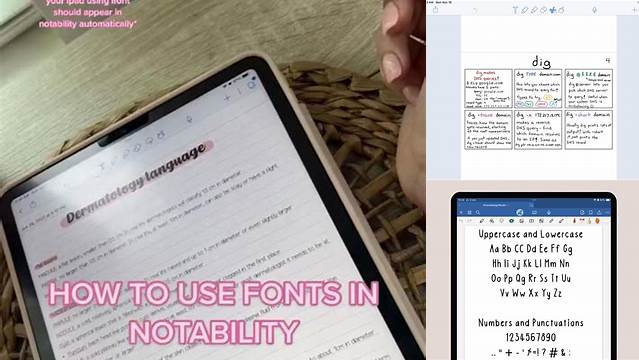
Best Fonts For Notability On IPad: A Comprehensive Guide
Hey guys! Are you a Notability user on your iPad looking to spice up your notes? Or maybe you're just tired of the same old fonts and want to inject some personality into your handwriting? You've come to the right place! In this comprehensive guide, we're diving deep into the world of fonts for Notability on iPad. We'll explore everything from the built-in options to how to install custom fonts and even recommend some of our favorites.
Choosing the right font is more than just aesthetics; it's about enhancing readability, improving your note-taking experience, and making your work truly your own. Whether you're a student, a professional, or simply someone who loves taking notes, having a variety of fonts at your disposal can make a world of difference. So, let's jump in and discover the exciting possibilities that await you in the realm of Notability fonts! We'll cover all the basics, like the default fonts available, and then move on to more advanced topics, such as how to install your own custom fonts. We'll also provide some tips and tricks for choosing the perfect font for different situations, like note-taking, journaling, or creating presentations. By the end of this guide, you'll be a font pro, ready to take your Notability experience to the next level. So, grab your iPad, open Notability, and let's get started! Remember, the right font can transform your notes from bland to brilliant, so don't underestimate the power of typography. Think of your notes as a visual representation of your thoughts, and the font is the voice that conveys those thoughts. Just like choosing the right words is important, so is choosing the right font. So, let's explore the possibilities and find the perfect font to match your style and needs.
Understanding Default Fonts in Notability
First, let's talk about the default fonts that come pre-installed in Notability. Notability offers a selection of fonts that are chosen for their readability and versatility. These fonts are a great starting point for your note-taking adventures. Understanding these default options is crucial before venturing into custom fonts. These fonts are carefully selected to provide a balance between aesthetics and functionality. They are designed to be legible on the iPad screen, even at smaller sizes, and they work well with both typed text and handwritten notes. Furthermore, they are optimized for digital use, meaning they render clearly and consistently across different devices and platforms. So, before you rush off to download a bunch of custom fonts, take some time to explore the default options. You might be surprised at how many great choices are already available to you. Each font has its own unique personality and can convey a different tone or feeling. For example, a serif font like Times New Roman might give your notes a more formal and professional look, while a sans-serif font like Helvetica might feel more modern and casual. Experiment with different fonts to see which ones you like best and which ones work best for different situations. Consider the purpose of your notes, the subject matter, and your personal preferences.
Notability typically includes a variety of fonts, including:
- Sans-serif fonts: These fonts have a clean, modern look and are great for headings and body text. Examples include Helvetica, Arial, and Open Sans.
- Serif fonts: These fonts have small decorative strokes (serifs) at the ends of the letters and often give a more traditional or formal feel. Times New Roman and Georgia are common examples.
- Monospaced fonts: In these fonts, each letter takes up the same amount of horizontal space, making them ideal for code snippets or text that needs to be aligned. Courier New is a classic monospaced font.
- Handwriting-style fonts: Some apps, including Notability, may offer fonts that mimic handwriting, adding a personal touch to your notes.
These default fonts are designed to cater to various needs, whether you're writing essays, taking meeting minutes, or sketching out ideas. Each font brings its own personality and readability to your notes. For example, if you're taking notes in a fast-paced lecture, you might prefer a clean and legible sans-serif font that's easy to read at a glance. On the other hand, if you're writing a creative piece or journaling, you might opt for a more decorative or handwriting-style font that reflects your personal style. The key is to experiment and find the fonts that resonate with you and enhance your note-taking experience. Don't be afraid to mix and match fonts for different elements of your notes, such as using a bold sans-serif font for headings and a serif font for the body text. This can help create visual hierarchy and make your notes more organized and engaging.
Installing Custom Fonts on Your iPad
Now, let's get to the exciting part: installing custom fonts! If you’re looking for something beyond the default options, adding custom fonts can really personalize your Notability experience. This process involves a few steps, but it's totally worth it for the added flexibility and style. Imagine having access to a vast library of fonts, each with its own unique character and charm. You could use a whimsical font for your personal journal, a professional font for your work notes, and a creative font for your artistic projects. The possibilities are endless! But before you start downloading fonts from the internet, it's important to understand the basics of font installation on your iPad. Fortunately, Apple has made it relatively easy to add custom fonts to your device, thanks to the introduction of font management profiles in recent versions of iOS and iPadOS. This means you no longer need to jailbreak your device or use third-party apps to install fonts. All you need is a font file (usually in .ttf or .otf format) and a font management app, which we'll discuss in more detail below.
Steps to Install Custom Fonts
- Find a Font Management App: You’ll need an app like iFont, AnyFont, or Font Diner. These apps help you install fonts on your iPad.
- Download Your Fonts: Find a reputable source for downloading fonts. Websites like Google Fonts, DaFont, and Font Squirrel offer a wide variety of free and paid fonts.
- Import Fonts to the App: Open your font management app and import the font files you’ve downloaded. This usually involves tapping an “Import” or “Install” button.
- Install the Font Profile: The app will guide you through installing a configuration profile. This is how iOS recognizes the new fonts. You’ll typically be redirected to the iPad’s Settings app to complete this step.
So, there you have it! A complete guide to fonts for Notability on iPad. From understanding the default options to installing custom fonts and troubleshooting common issues, you’re now equipped to make your notes look exactly how you want them. Experiment with different fonts, find your favorites, and enjoy a more personalized note-taking experience. Remember, the right font can make all the difference in how you perceive and interact with your notes. It can enhance readability, improve comprehension, and even spark creativity. So, don't underestimate the power of typography! Take the time to explore the vast world of fonts and find the ones that resonate with you and your style. And don't be afraid to break the rules and try new things. After all, note-taking is a personal process, and your fonts should reflect your individuality and your unique approach to learning and creating. So, go ahead, unleash your inner font enthusiast and transform your notes into works of art! And most importantly, have fun with it!